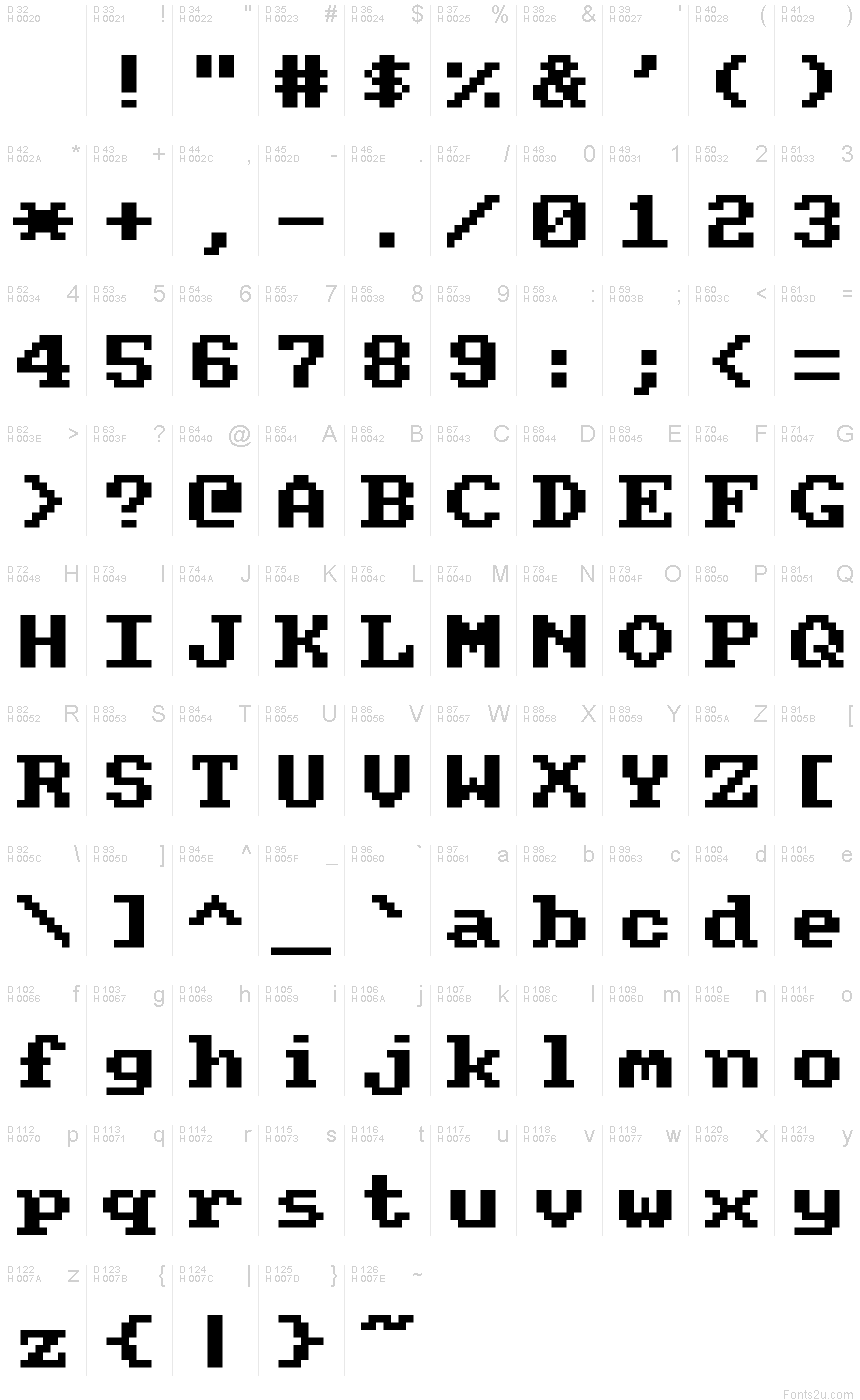
Amstrad CPC464 by Wesley Clarke of FontStruct is a free pixel font built from chunky, square-edged strokes. Its stepped corners and tight internal gaps recall the coarse bitmap lettering of early home computers. The shapes are blunt and mechanical.
A retro game studio or electronics brand could use it for logos, packaging, and digital graphics rooted in 1980s computer culture. It also fits arcade event posters, where the blocky construction immediately sets a period-specific scene. Alongside pixel art, the lettering can become part of an on-screen interface rather than a neutral caption.